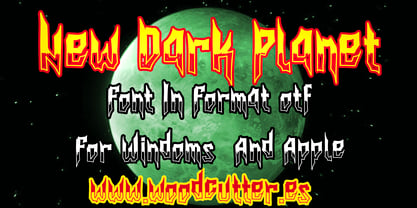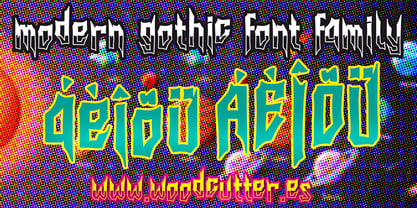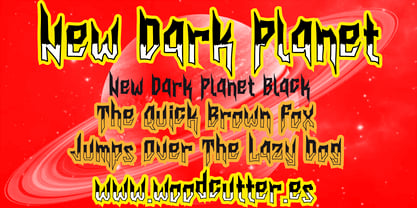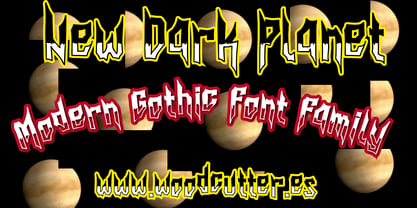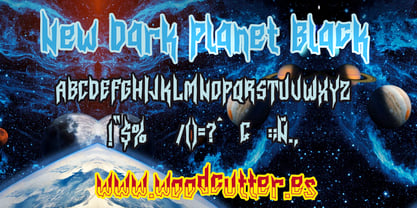
New Dark Planet
by Woodcutter
The New Dark Planet Font Family was designed by Jordi Manero and published by Woodcutter. New Dark Planet contains 2 styles and family package options. More about this family
“New Dark Planet” is a type family in uppercase and lowercase with full accent support, merging modern gothic spirit with an experimental and informal aesthetic. This font blends classical gothic influences with rebellious energy, resulting in a typeface with a striking visual identity. The main version, New Dark Planet, features semi-filled letters that appear to be in the midst of forming or eroding. Rough strokes and imperfect outlines give it a dark, alternative personality. Sharp, irregular shapes create a haunting yet approachable feel, perfect for music titles, film posters, underground fashion, or any design seeking a bold, unconventional tone.
The second version, New Dark Planet Black, offers a stronger counterpart with fully filled letters. While preserving the same informal gothic style, it brings greater visual impact and is ideal for establishing strong typographic hierarchies. Both fonts share a consistent style that allows for cohesive use across designs, providing character and flexibility. “New Dark Planet” is more than just a font — it’s a stylistic statement for those who want to break from the ordinary with a dark, modern twist.